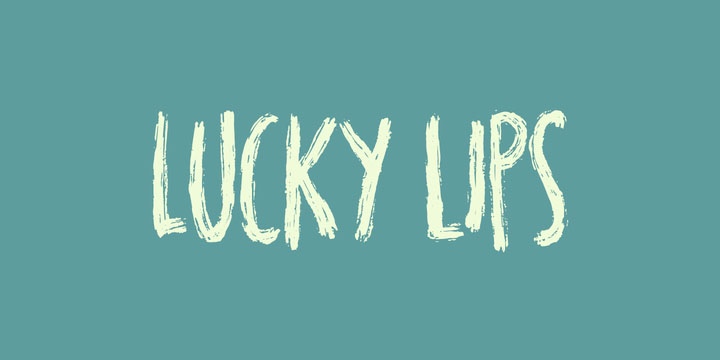
Lucky Lips Font
Lucky Lips Font is perfect for beauty brand marketing, cosmetic packaging design, lipstick product labels, glamorous fashion branding, makeup artist portfolios, beauty salon signage, romantic greeting cards, feminine lifestyle brands, beauty blog headers, and seductive advertising campaigns.
Lucky Lips Font is exciting because it captures the alluring charm and seductive appeal of classic beauty with its sultry letterforms that embody the confidence and glamour of timeless femininity. Its distinctive character design combines playful flirtation with sophisticated elegance, making it perfect for beauty brands that want to communicate allure, romance, and the irresistible power of feminine charm in competitive cosmetics and fashion markets.
The Lucky Lips Font family includes Light, Regular, Medium, Bold weights, seductive Italic variations, Condensed styles, Glamour alternates, Beauty flourishes, Romantic ornaments, and Kiss elements, providing designers with comprehensive tools for creating alluring beauty typography that captures the essence of feminine glamour and seductive sophistication.
Lucky Lips Font Free Download delivers captivating beauty typography for brands celebrating feminine allure and romantic charm, featuring elegantly crafted letterforms that embody the confidence and sophistication of classic beauty standards. This enchanting typeface combines seductive appeal with professional functionality, creating the perfect solution for beauty companies, fashion brands, and romantic lifestyle businesses that target confident women who embrace their feminine power.
Whether you're developing cosmetic brand identities, designing beauty product packaging, creating romantic marketing materials, or producing glamorous fashion communications, Lucky Lips Font provides the seductive foundation needed for memorable beauty positioning. Its alluring character makes it particularly effective for lipstick brands, beauty salons, romantic lifestyle products, and fashion companies targeting women who appreciate classic glamour and timeless femininity.
Perfect for beauty marketers, cosmetic brand designers, fashion stylists, and creative professionals working with feminine lifestyle brands, this font offers the alluring qualities essential for successful beauty market positioning. The typeface's seductive nature ensures consistent charm across both digital beauty platforms and traditional cosmetic packaging applications.
Lucky Lips Font includes comprehensive beauty-focused character sets, glamour-inspired design elements, and romantically optimized spacing that guarantees superior performance in beauty design applications. Its seductive approach to typography makes it indispensable for brands celebrating feminine allure and romantic beauty. Embrace seductive charm with Lucky Lips Font Free Download and create typography that truly kisses with glamour.